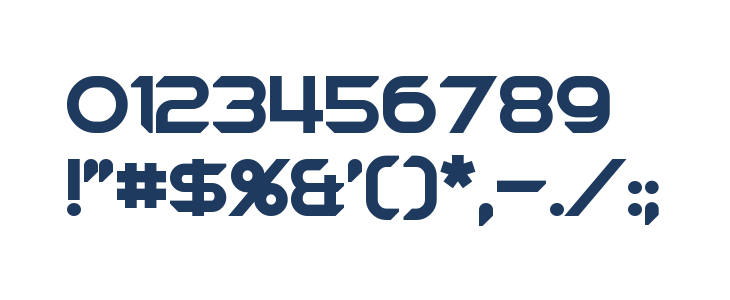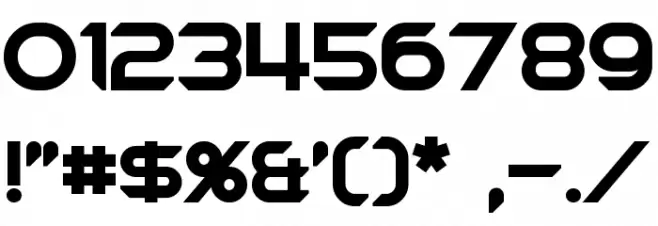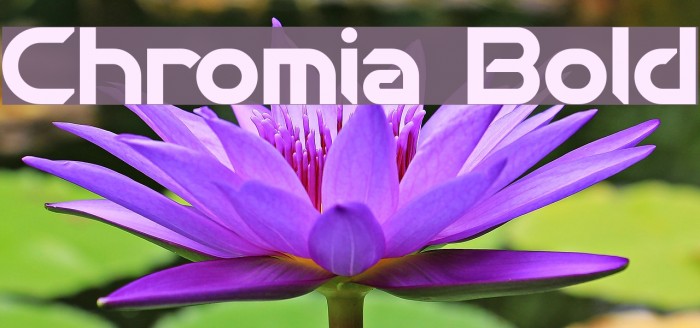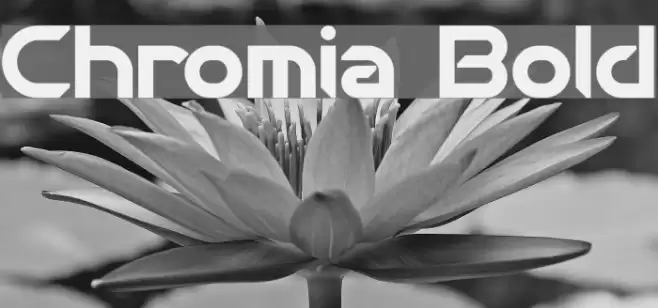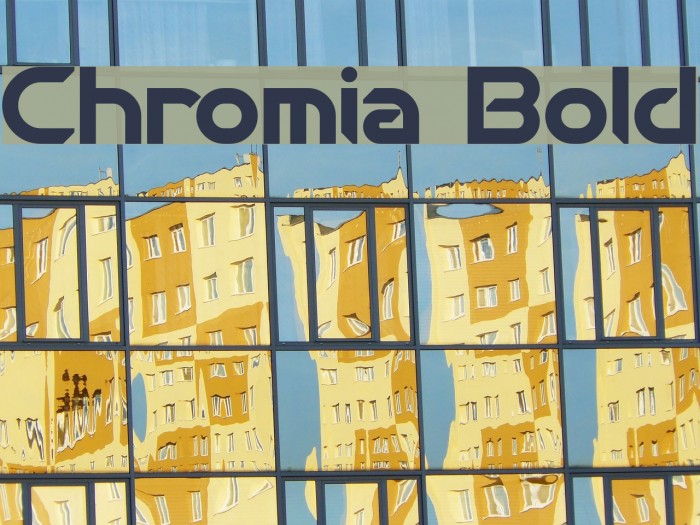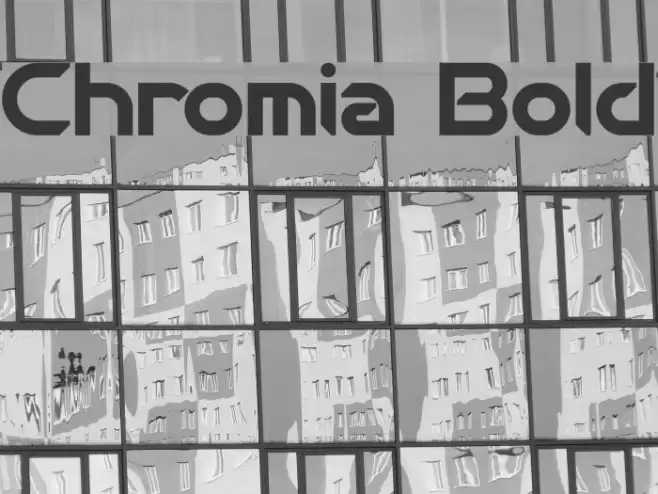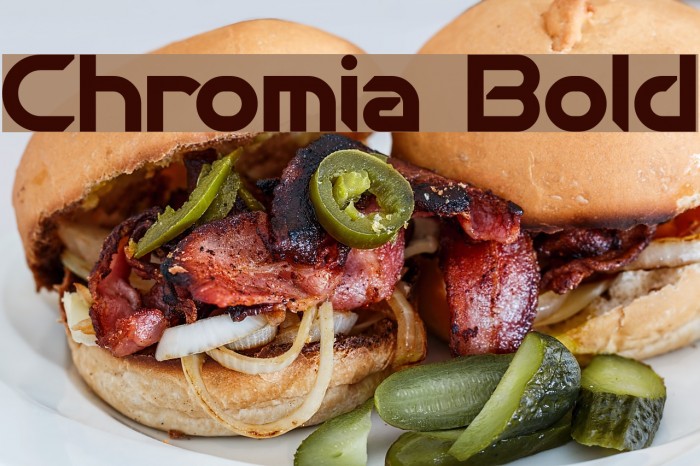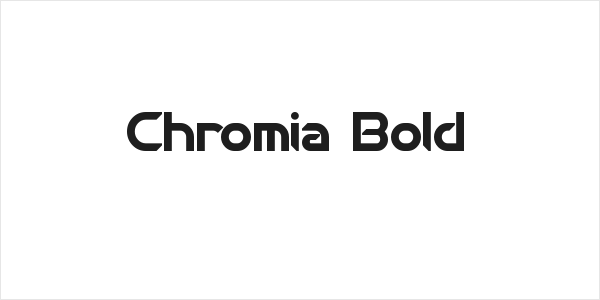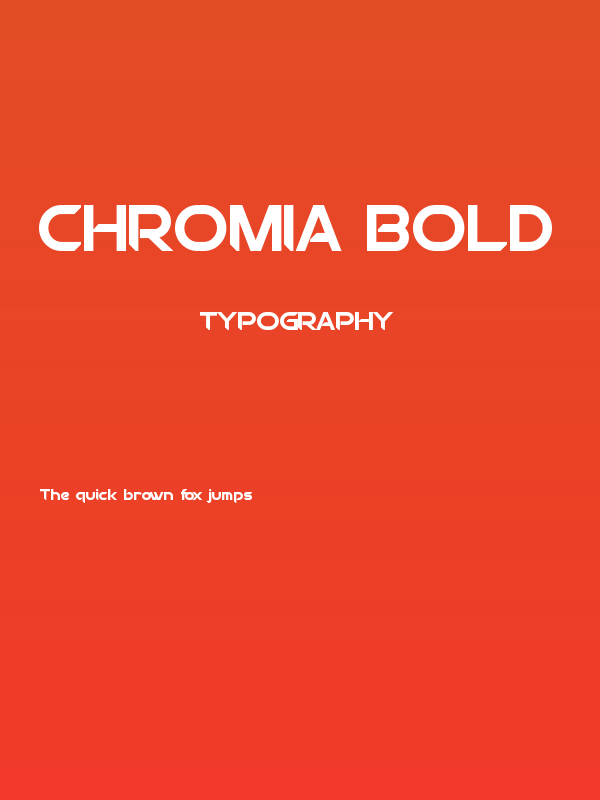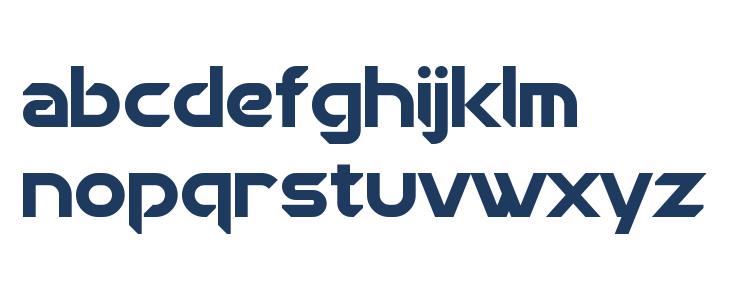
Chromia Bold Font
Chromia Bold Description
This font features a bold, geometric design with a modern and futuristic aesthetic. The characters are constructed with sharp angles and clean lines, giving it a distinctive and assertive appearance. The uppercase letters are particularly striking, with a uniform height and width that create a cohesive look. The lowercase letters maintain the geometric style, offering a balanced contrast to the uppercase. Numbers and special characters are designed to match the boldness and clarity of the alphabet, ensuring consistency across all text elements. The overall design is both functional and visually appealing, making it suitable for a variety of digital and print applications.
| Proposed Projects | Ideal for technology branding, digital interfaces, video game graphics, and modern advertising. |